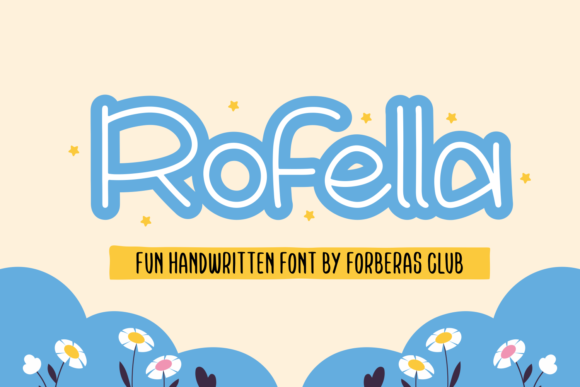
Behold, the Rofella Font, a captivating and elegant display font that will captivate your audience and elevate your branding to new heights. Step into a world of imagination and creativity as you discover the endless possibilities that await you with this stunning font.
Immerse yourself in the beauty of Rofella's intricate details, meticulously crafted to inspire and allure. Its graceful curves and playful strokes dance across the page, leaving a trail of enchantment in their wake.
With Rofella, you'll have the power to transform ordinary words into extraordinary works of art. Whether you're designing logos, creating eye-catching ads, or crafting heartfelt quotes, Rofella's versatility knows no bounds.
Picture your social media posts adorned with Rofella's charm, capturing hearts and igniting conversations. Unleash your creativity in website designs, where Rofella's captivating presence commands attention and leaves a lasting impression.
Embark on a journey through the world of typography, where Rofella guides you along a path of elegance and sophistication. Let your imagination run wild as you explore the limitless potential of this stunning font.
Don't settle for ordinary fonts that fade into the background. With Rofella, your designs will shine brighter than ever before, leaving an unforgettable mark on all who encounter them.